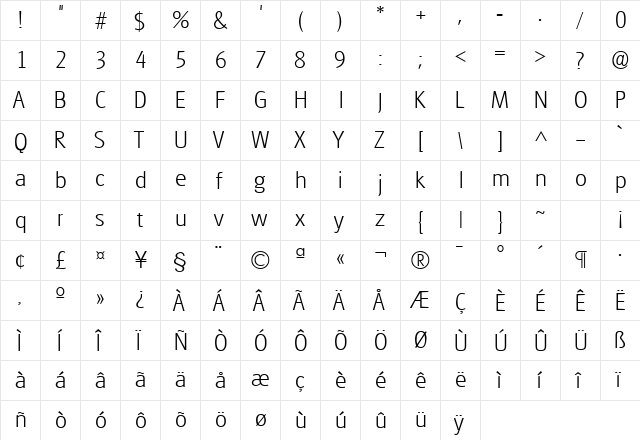
Goudita Sans Light SF Regular
Design Context for Goudita Sans Light SF Typeface
Goudita Sans Light SF takes a measured approach to typography — its balanced proportions and neutral character make it a reliable workhorse for both digital and print work. Its slender proportions lend an understated elegance to any composition.
Pro Tip: Pair Goudita Sans Light SF with a font of contrasting weight or personality to build a more expressive typographic hierarchy.